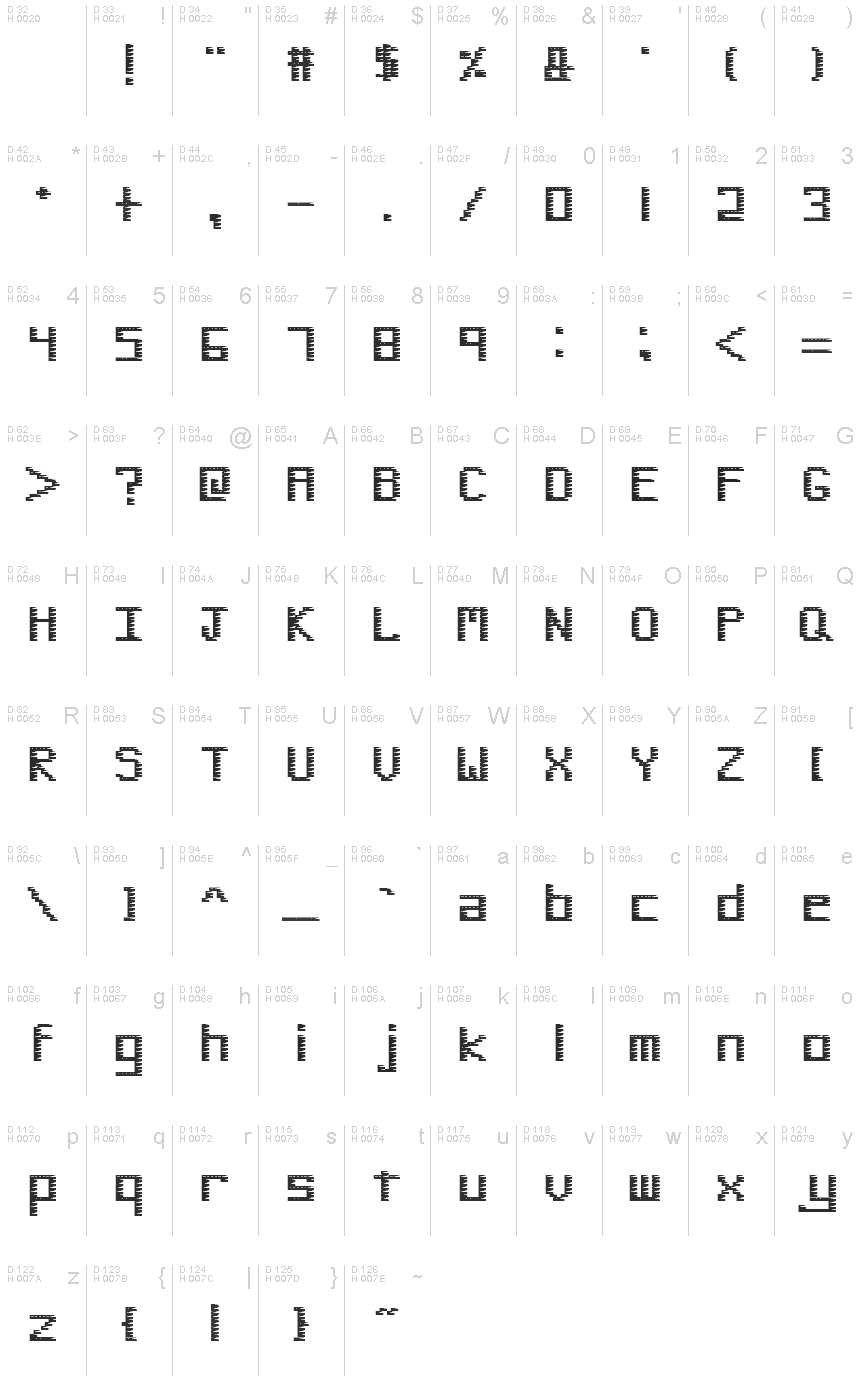
Pinstripe Bitmap Regular
Pinstripe Bitmap Regular is a captivating display font that exudes a distinct techno-inspired aesthetic. Designed by Denzyltron, this expanded font boasts a striking visual impact, with its sharp, angular lines and sleek, geometric forms. The pinstripe motif infuses the typeface with a dynamic, industrial-chic vibe, making it an ideal choice for a range of design applications, from bold headlines to futuristic branding. Its expanded width lends a sense of power and confidence, while the bitmap-inspired details add a touch of retro-digital charm.
Pinstripe Bitmap Regular is a versatile font that can elevate the visual impact of any project, from cutting-edge digital designs to eye-catching print materials.